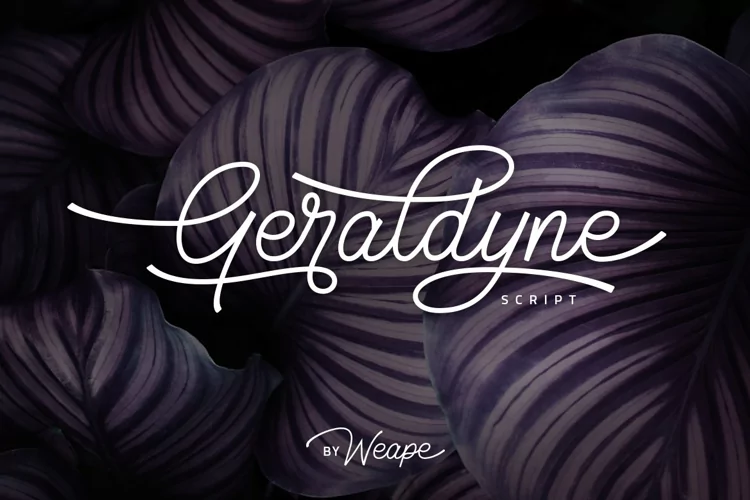
Geraldyne Script
Geraldyne
Introducing the new script font called Geraldyne. Each letter is made with various alternatives, thus making it more varied. With unique monoline style for your daily and project needs ex: logo, fashion, apparel, photography, watermark, quotes, blog header, poster, wedding, invitation, stationery, branding, letter, etc. Geraldyne comes with several stylistics, ligatures and swashes.Geraldyne include files :